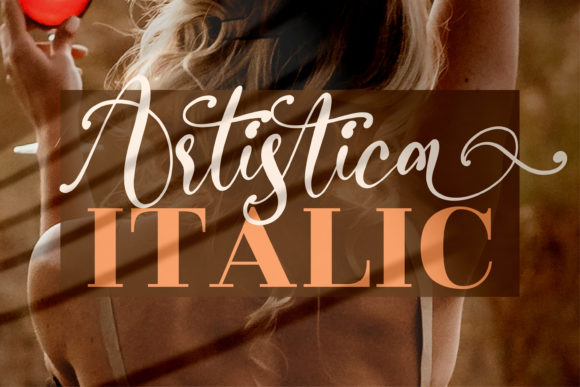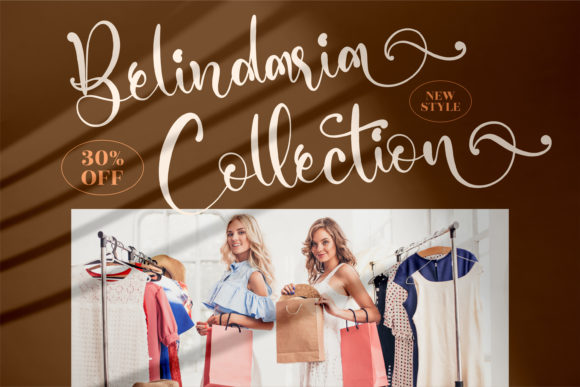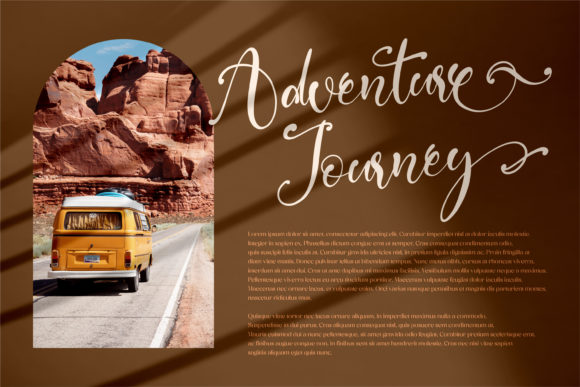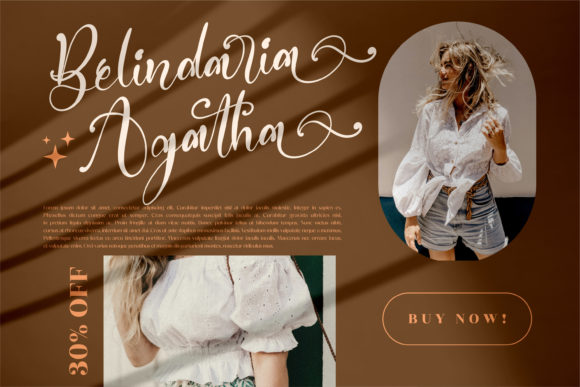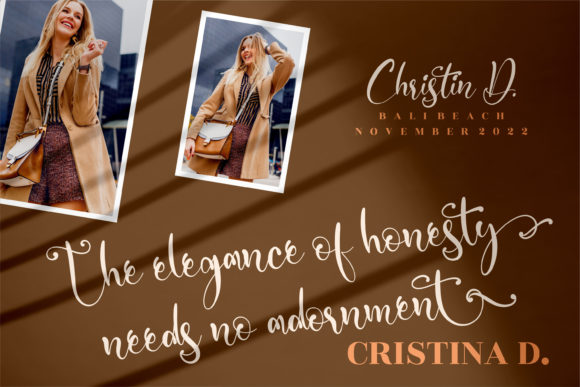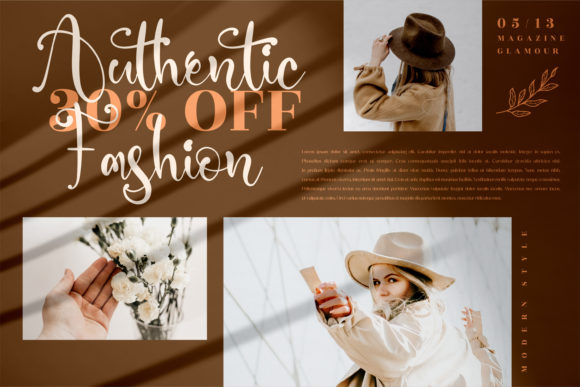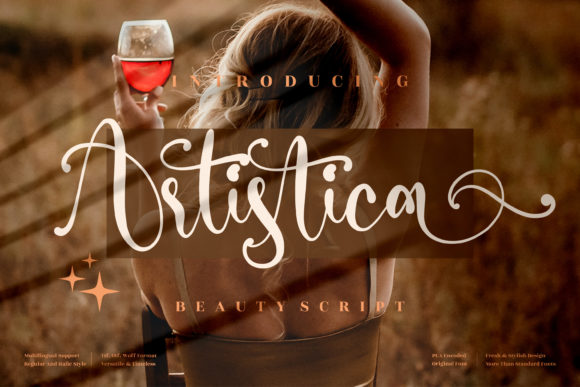
Introducing Artistica Font: Elevate Your Designs with Elegance and Class
Are you tired of using the same old fonts in your designs? Look no further than Artistica Font, a lovely and stylish script font that exudes elegance and class. Crafted with precision and attention to detail, Artistica is the perfect addition to any design project that requires a touch of sophistication and refinement.
The Artistica Advantage: Unique and Refreshing
Artistica was particularly crafted for designers and crafters who need a beautiful and refreshing look to their designs. This font is not just another generic script font; it’s a carefully crafted typeface that combines classic elegance with modern flair. With Artistica, you can add a touch of luxury and sophistication to your designs, making them stand out from the crowd.
PUA Encoding: Easy Access to Amazing Glyphs and Ligatures
One of the standout features of Artistica Font is its PUA (Private Use Area) encoding. This means that you can access all of the amazing glyphs and ligatures with ease, giving you unparalleled creative control over your designs. With PUA encoding, you can effortlessly navigate the font’s extensive character set, including swashes, alternates, and ligatures, to create stunning and unique typography.
Artistica Font is versatile and can be used for a wide range of design applications, including:
- Logos and branding: Create a lasting impression with a custom logo that exudes elegance and sophistication.
- Wedding and event invitations: Add a touch of luxury and romance to your wedding or event invitations.
- Packaging and product design: Stand out on store shelves with eye-catching packaging and product design.
- Advertising and marketing materials: Elevate your advertising and marketing materials with sophisticated typography.
- Stationery and paper crafts: Add a touch of elegance to your stationery and paper crafts.
Why Choose Artistica Font?
With so many fonts available, why choose Artistica Font? Here are just a few reasons:
- Elegance and class: Artistica exudes sophistication and refinement, making it perfect for designs that require a touch of luxury.
- Unique and refreshing: Artistica is a one-of-a-kind font that will set your designs apart from the crowd.
- PUA encoded: Easy access to amazing glyphs and ligatures, giving you creative control over your designs.
- Versatile: Use Artistica for a wide range of design applications, from logos and branding to packaging and product design.
Get Creative with Artistica Font
Ready to elevate your designs with Artistica Font? With its elegant and classy style, PUA encoding, and versatility, Artistica is the perfect addition to any design project. Whether you’re a designer, crafter, or DIY enthusiast, Artistica Font is sure to inspire your creativity and take your designs to the next level.
In conclusion, Artistica Font is a stunning script font that exudes elegance and class. With its PUA encoding, versatility, and unique style, Artistica is the perfect choice for designers and crafters who need a beautiful and refreshing look to their designs. So why wait? Get creative with Artistica Font today and take your designs to new heights!